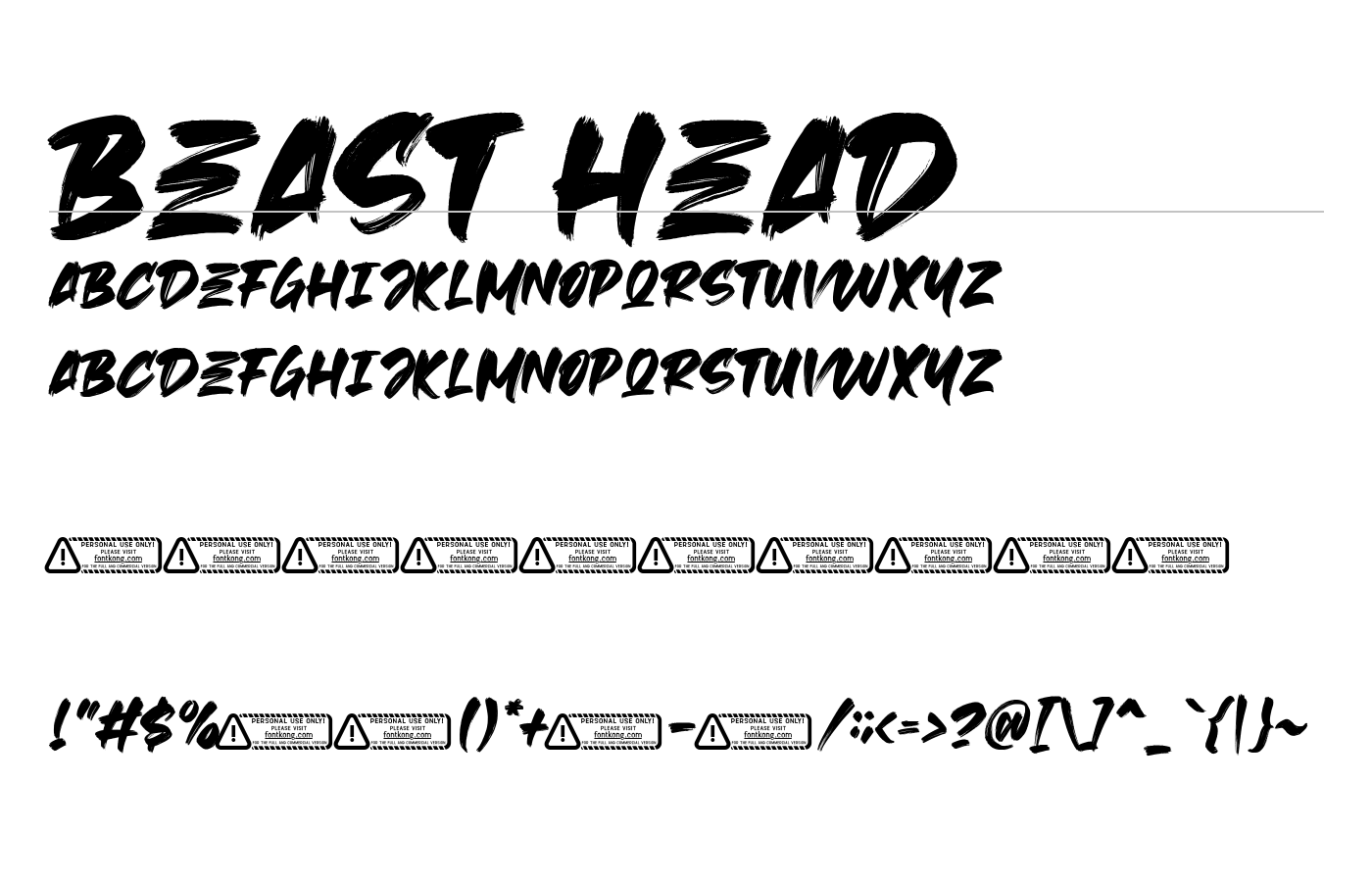
Beast Head is a bold, brush-style script font with a strong, energetic vibe, featuring rough and dynamic strokes that give it a raw, hand-painted feel. Its uppercase letters showcase high contrast with thick, textured lines and sharp, angled edges, making it perfect for bold headlines, branding, and designs that need an edgy, artistic flair. This font works best in creative projects like posters, logos, and urban-inspired visuals where a striking and expressive style is desired.
Beast Head Font
About Beast Head Font